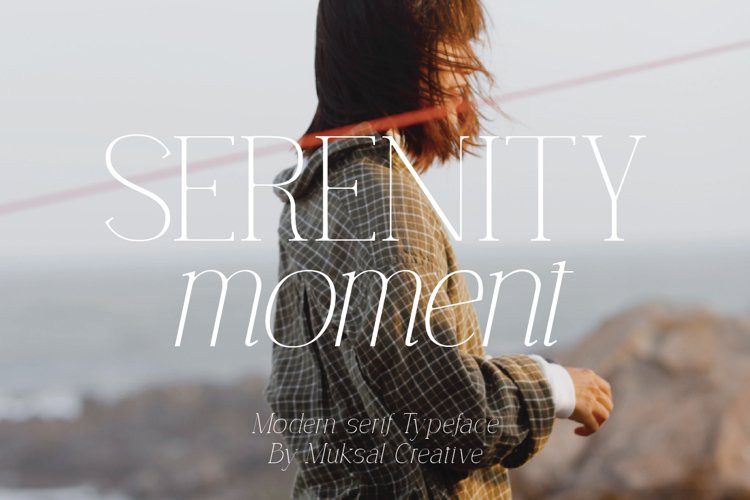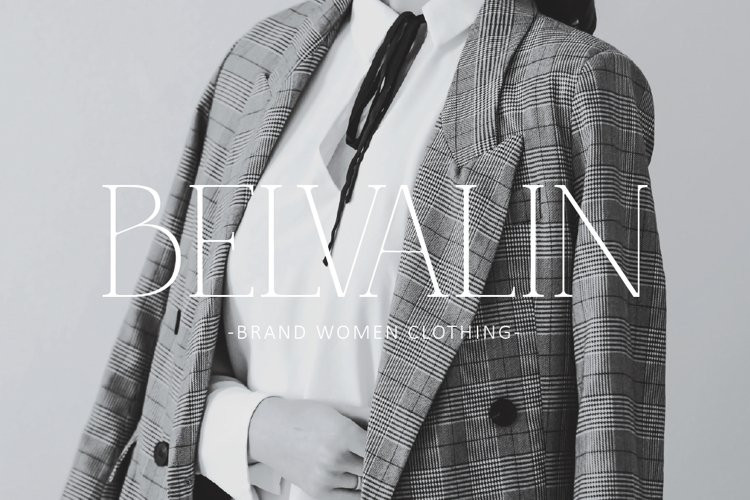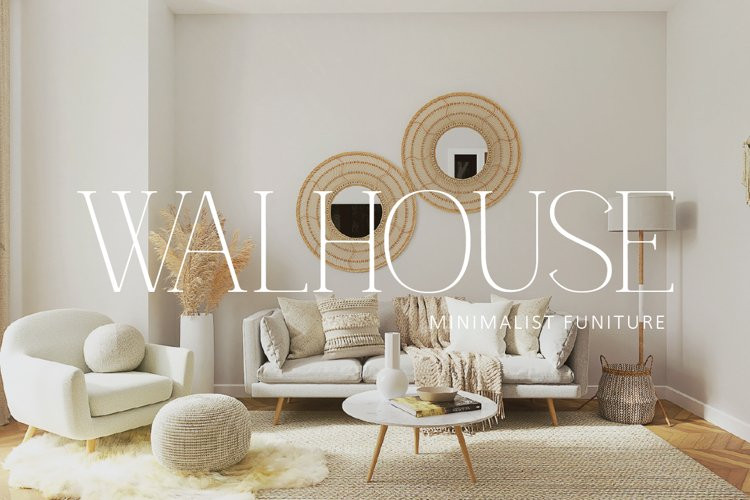
Serenity Moment Font
Serenity Moment FontSerenity Moment Modern serif Font typeface with beautiful alternate, special glyphs, ornament and multilingual support. It’s a very versatile font that works great in large and small sizes. Perfect for editorial projects, Logo design, Clothing Branding, product packaging, magazine headers, or simply as a stylish text overlay to any background image.